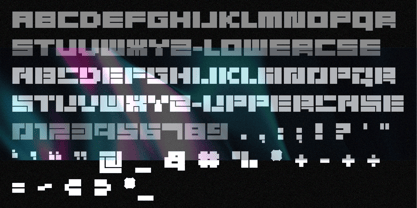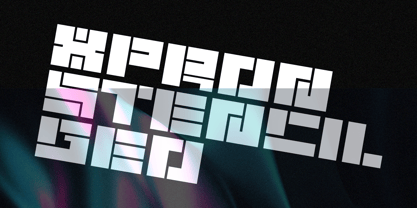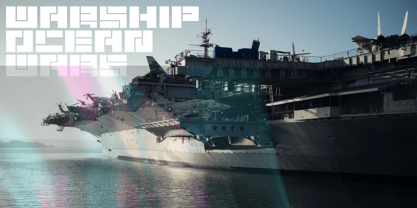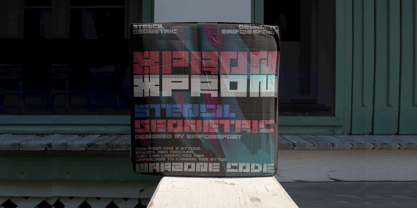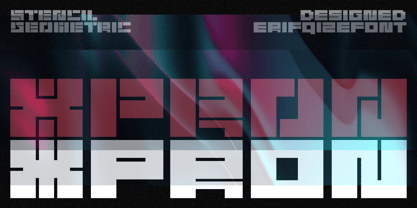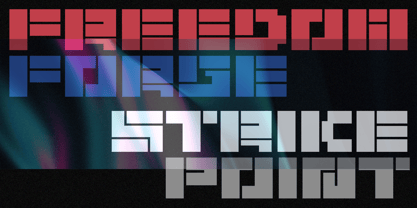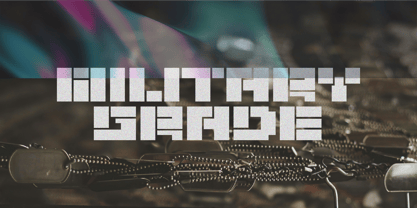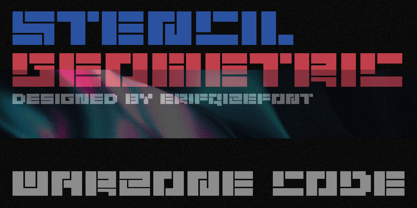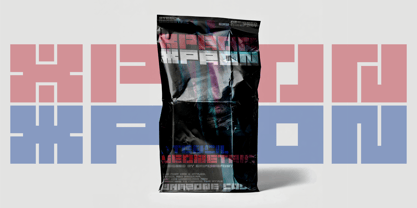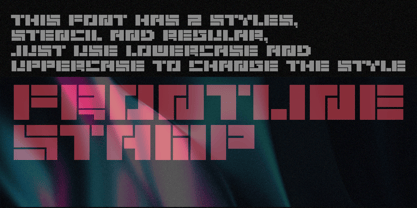
Xpron Stencil Geo
by Erifqizefont
The Xpron Stencil Geo Font Family was designed by Eka Rifqi Setiawan and published by Erifqizefont. Xpron Stencil Geo contains 1 styles. More about this family
XPRON STENCIL GEO – Futuristic Stencil Meets Geometric Precision
Xpron Stencil Geo is an experimental display typeface that merges the boldness of futuristic stencil forms with the clarity of geometric construction. Designed for projects that demand a strong, industrial, and modern presence.
This typeface offers two contrasting styles in one system:
• Uppercase features a sharp, modular stencil design—perfect for sci-fi, tech, military, and dystopian aesthetics.
• Lowercase delivers a clean, standard geometric look, ideal for supporting text, subheadings, or UI elements.